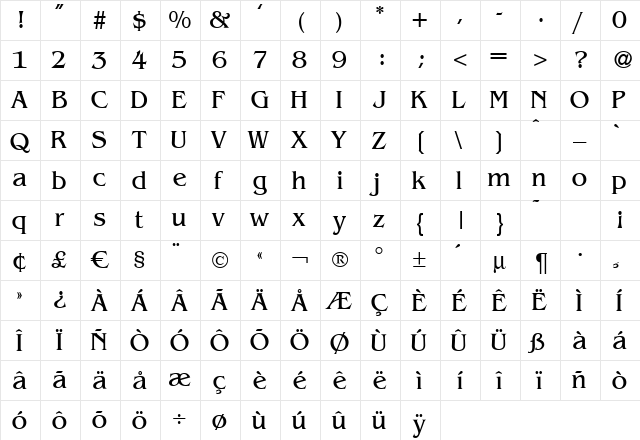
B693-Roman Regular
Design Context for B693-Roman Typeface
B693-Roman takes a measured approach to typography — its balanced proportions and neutral character make it a reliable workhorse for both digital and print work.